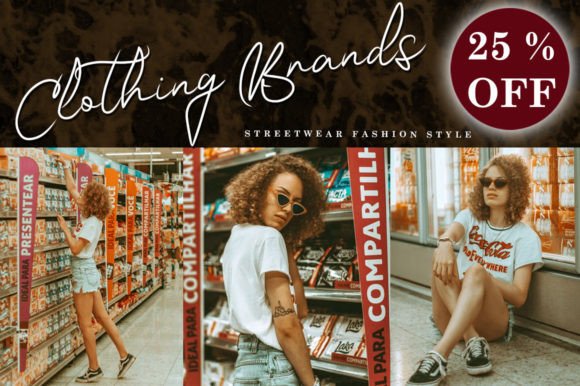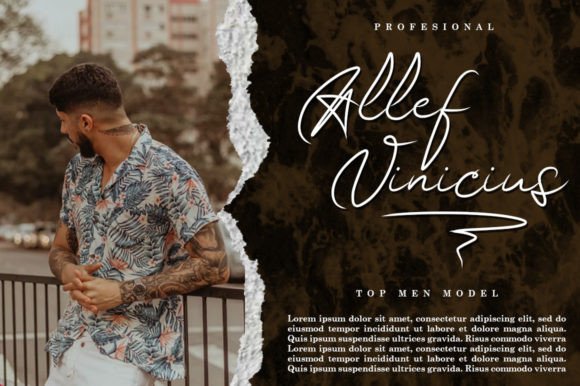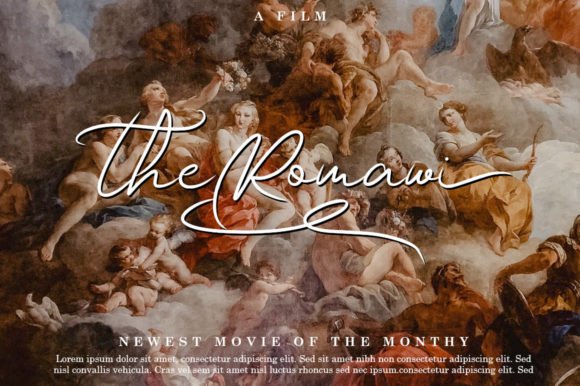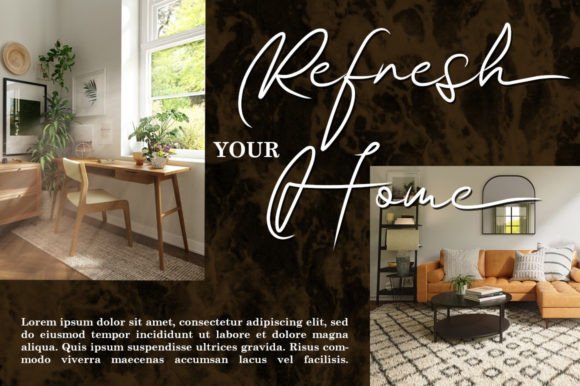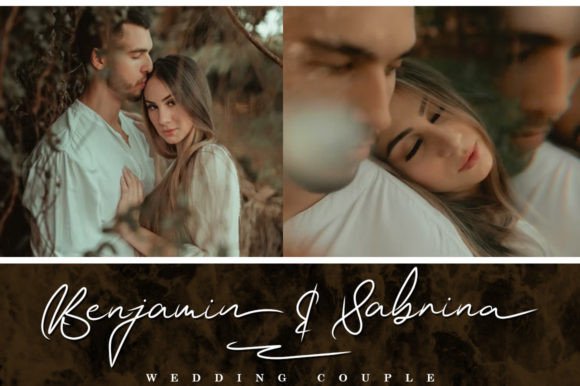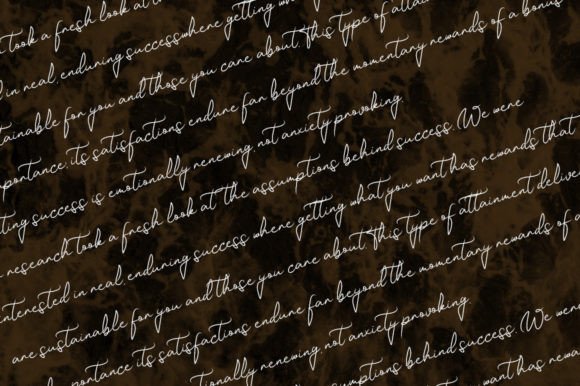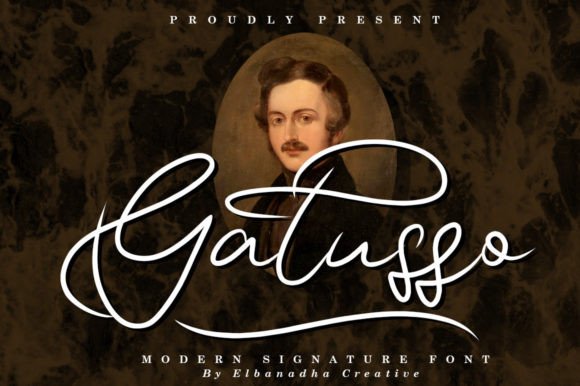
Gatusso Font: Elevate Your Design with Luxury and Elegance
Are you looking for a font that can add a touch of luxury and sophistication to your design projects? Look no further than the Gatusso font. This beautiful and light handwritten font is sure to make a stunning impact on any design you create. With its unique feel and elegant style, Gatusso is the perfect choice for designers and crafters who want to add a touch of class to their work.
What is Gatusso Font?
Gatusso is a modern handwritten font that is designed to be both elegant and versatile. Its light and airy feel makes it perfect for use in a variety of design projects, from luxury branding and advertising to packaging and digital media. The font features beautiful, flowing lines and a unique character set that is sure to make your designs stand out.
Key Features of Gatusso Font
- Unique and Elegant Style: Gatusso has a distinctive and sophisticated style that is sure to add a touch of luxury to any design project.
- Light and Airy Feel: The font’s light and airy feel makes it perfect for use in designs where you want to convey a sense of elegance and refinement.
- Handwritten with Love: Gatusso is a handwritten font that is crafted with love and care, giving it a personal and unique touch.
- Versatile and Flexible: The font is highly versatile and can be used in a variety of design projects, from luxury branding to digital media.
Why Choose Gatusso Font?
There are many reasons why designers and crafters choose Gatusso font for their design projects. Here are just a few:
- Adds a Touch of Luxury: Gatusso font adds a touch of luxury and sophistication to any design project, making it perfect for high-end branding and advertising.
- Stand Out from the Crowd: The font’s unique style and elegant feel make it sure to stand out from the crowd and grab attention.
- Easy to Read: Despite its elegant style, Gatusso font is highly legible and easy to read, making it perfect for use in body text and headlines.
- Highly Versatile: The font can be used in a variety of design projects, from print to digital media.
How to Use Gatusso Font in Your Design Projects
Using Gatusso font in your design projects is easy. Here are a few tips to get you started:
- Pair it with Other Fonts: Gatusso font pairs well with other fonts, so feel free to experiment with different combinations to find the one that works best for your design.
- Use it for Headlines and Titles: The font’s elegant style makes it perfect for use in headlines and titles, where you want to make a bold statement.
- Add it to Your Brand Identity: If you’re looking to add a touch of luxury to your brand identity, consider using Gatusso font in your logo and marketing materials.
In conclusion, Gatusso font is a beautiful and elegant handwritten font that is sure to add a touch of luxury to any design project. With its unique feel and stunning impact, it’s the perfect choice for designers and crafters who want to create high-end designs that stand out from the crowd. So why wait? Download Gatusso font today and start elevating your designs to the next level!